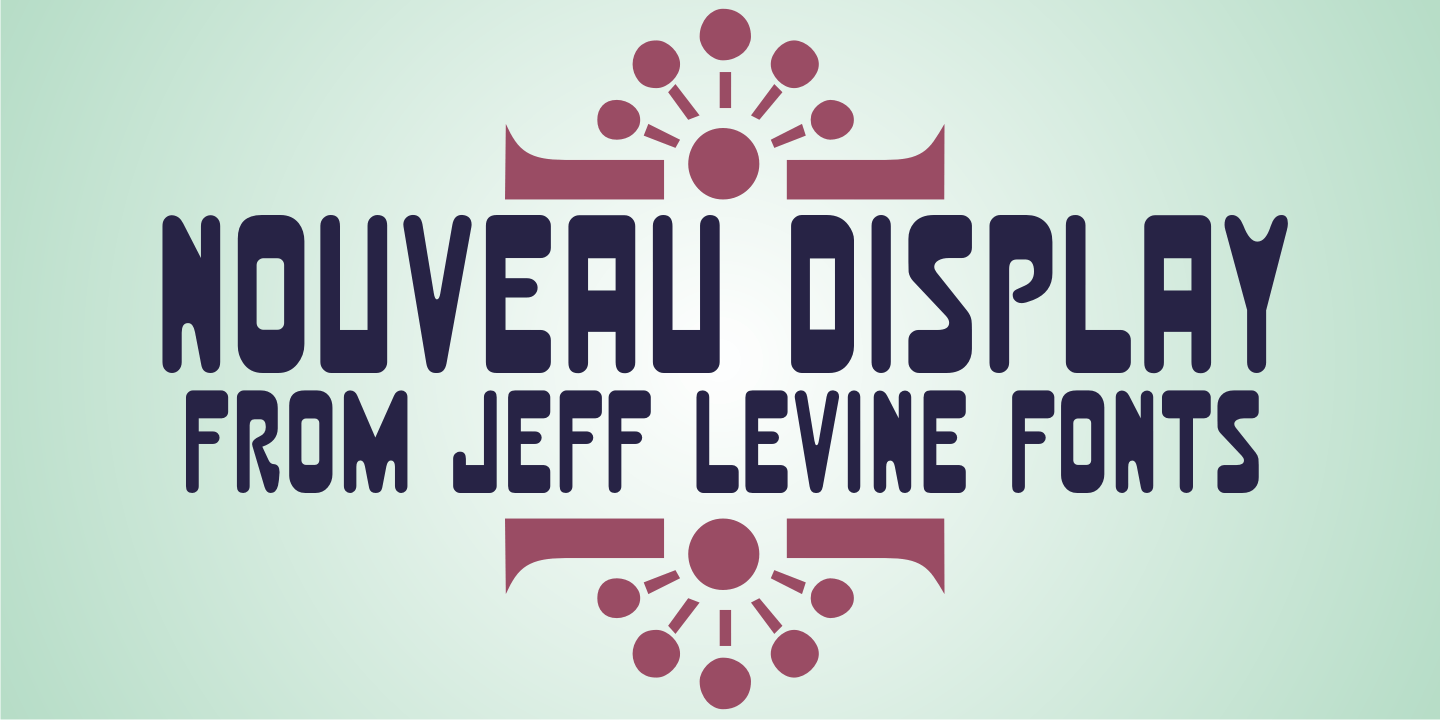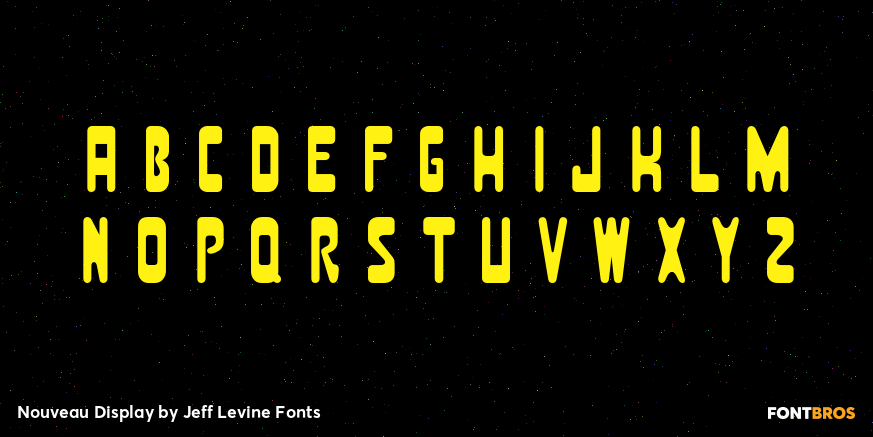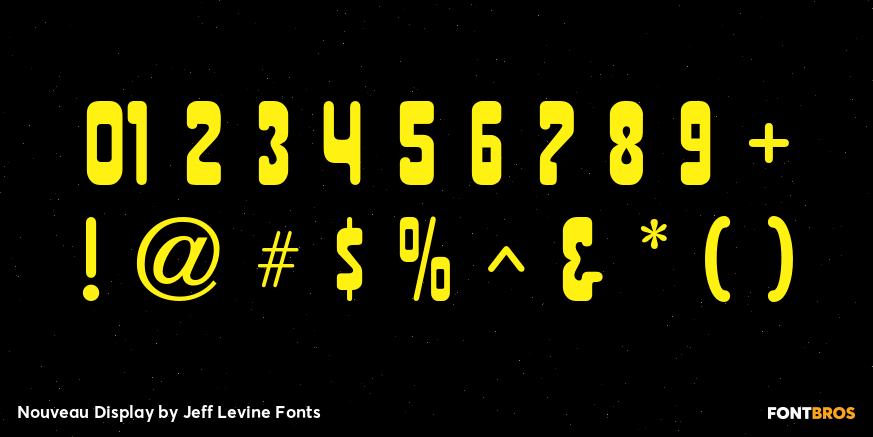
Nouveau Display
Vintage sheet music for the 1920s song "Where Did Robinson Crusoe Go with Friday on Saturday Night?" yielded the hand lettered Art Nouveau alphabet for Nouveau Display JNL.
Because the Art Nouveau movement was so influential in the graphic designs of the 1960s "Love Generation" counter culture, this typeface blends itself well with projects crossing many decades and varying styles.